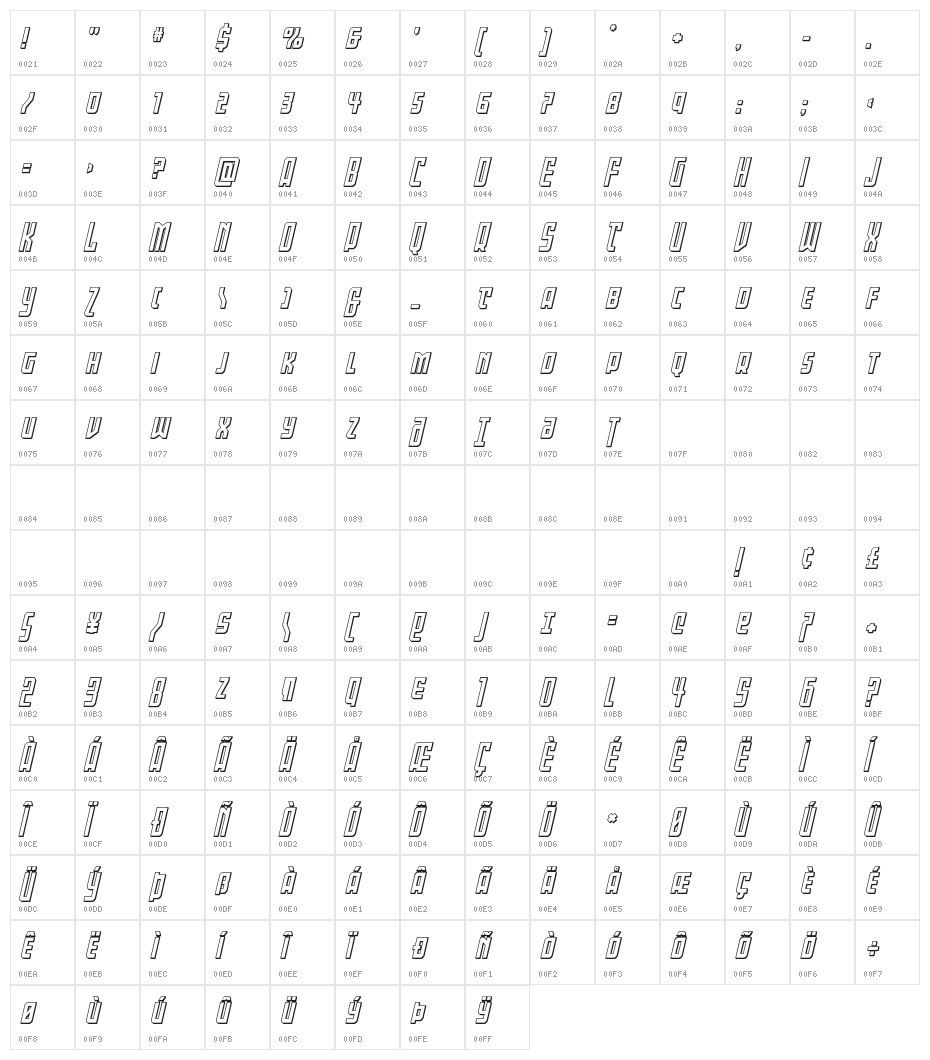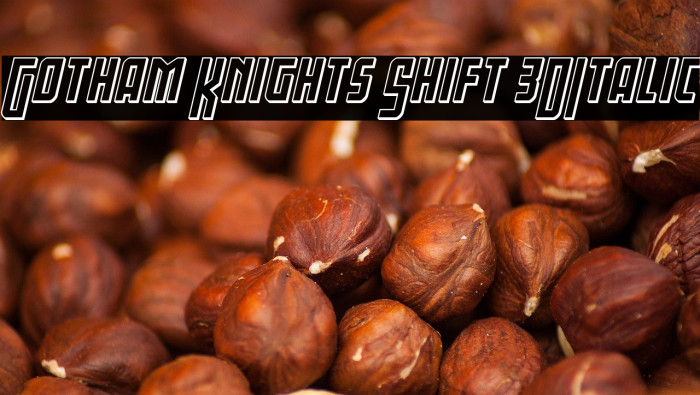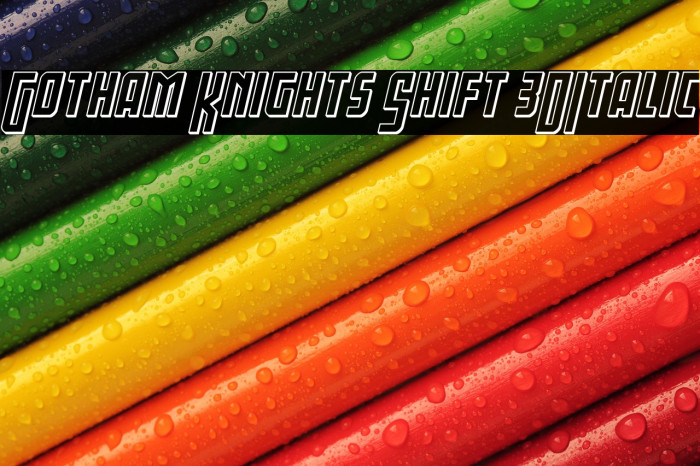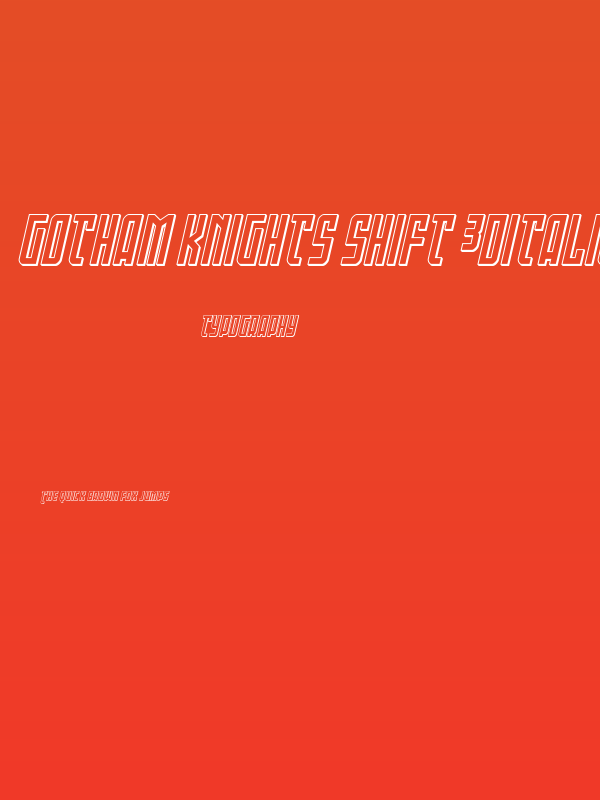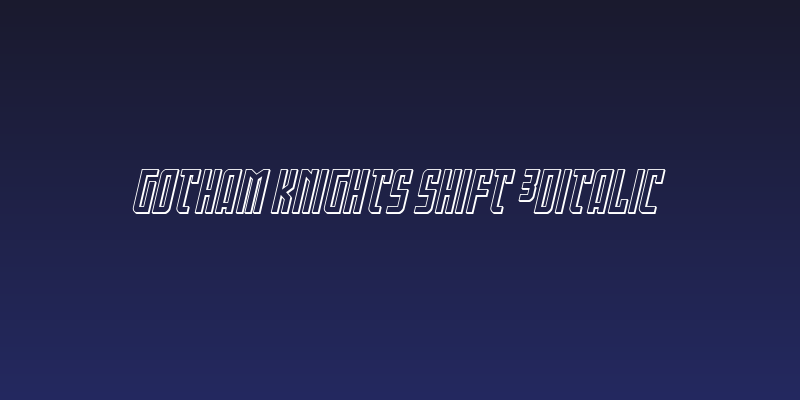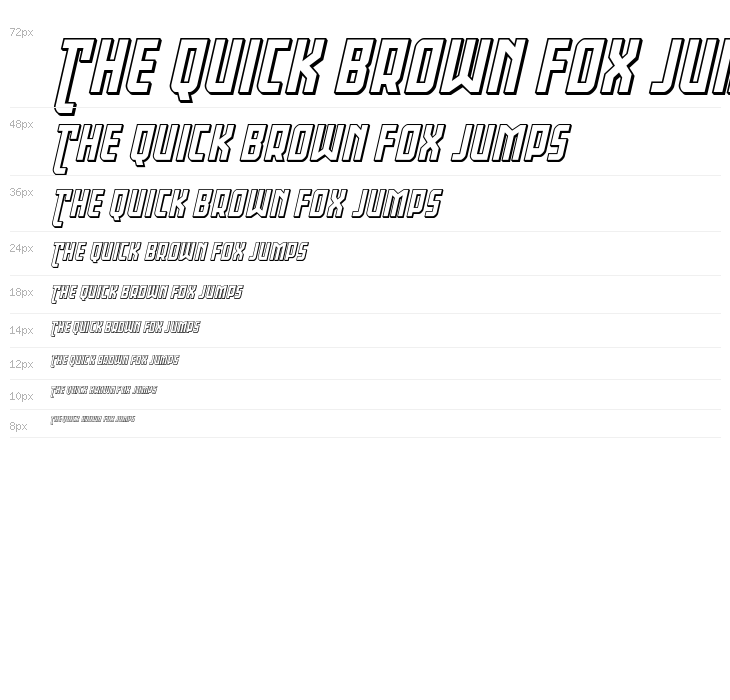
Gotham Knights Shift 3DItalic Font
Gotham Knights Shift 3DItalic Description
This font features a bold, three-dimensional appearance with a distinct italic slant, creating a dynamic and futuristic look. The characters are outlined, giving them a shadowed effect that enhances their depth. The uppercase letters are angular and geometric, while the lowercase letters maintain a consistent style, ensuring readability. The numbers and special characters follow the same design principles, making them cohesive with the overall aesthetic. This font is ideal for projects that require a modern and edgy feel, such as gaming titles, tech branding, or sci-fi themed designs.